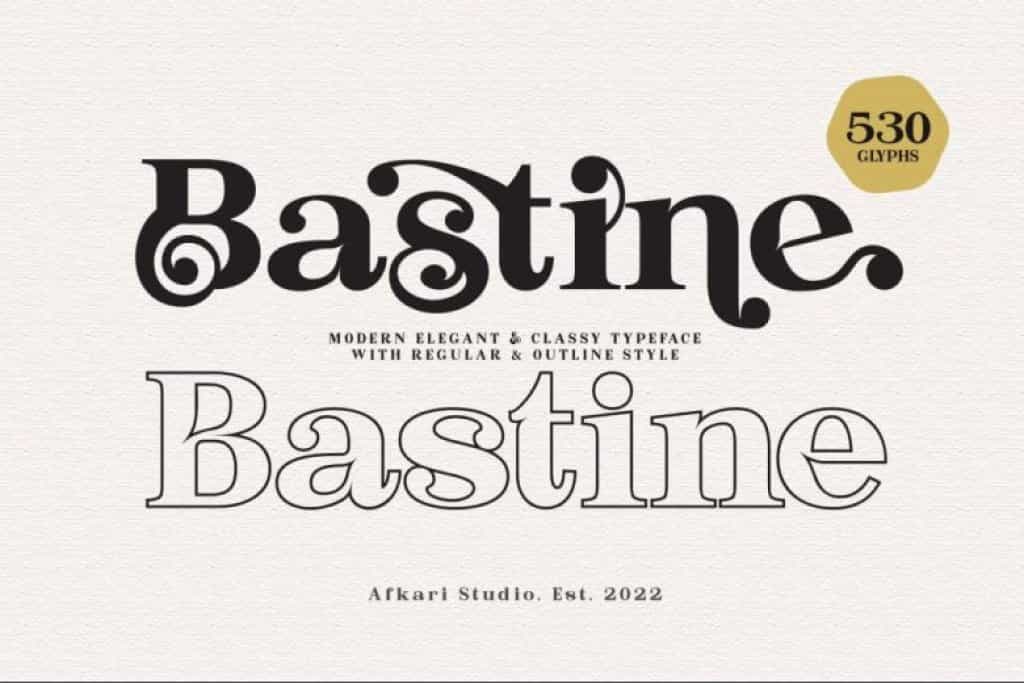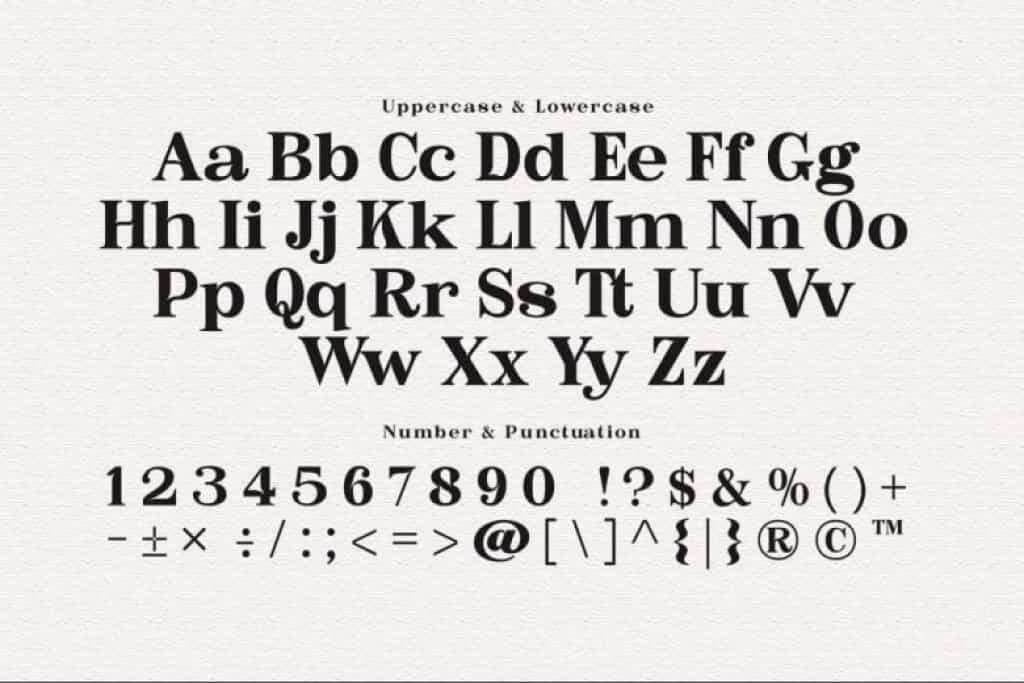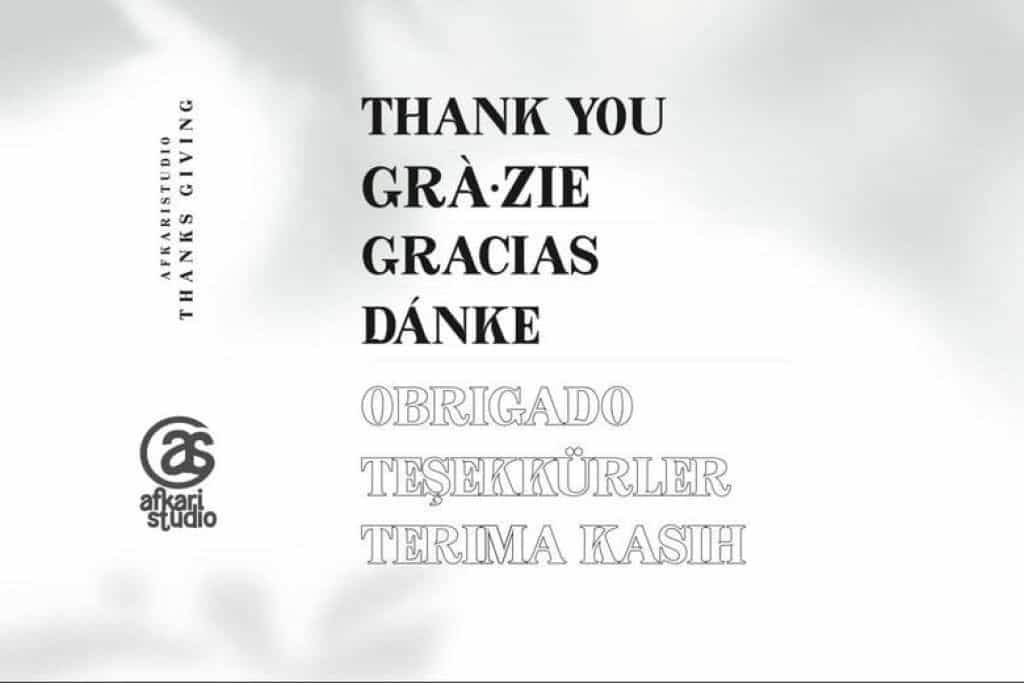
Bastine is an elegant serif font featuring an abundance of different glyphs, glyphs and ligatures to create distinctive styles both outline and regular. Perfect for branding, clothing, logo design, product packaging for products wedding invitations magazine headlines or just adding an artistic flourish, Bastine modern elegant and stylish font can create distinctive styles both outline and regular.